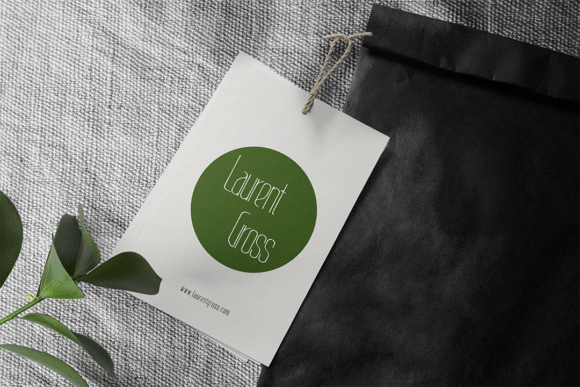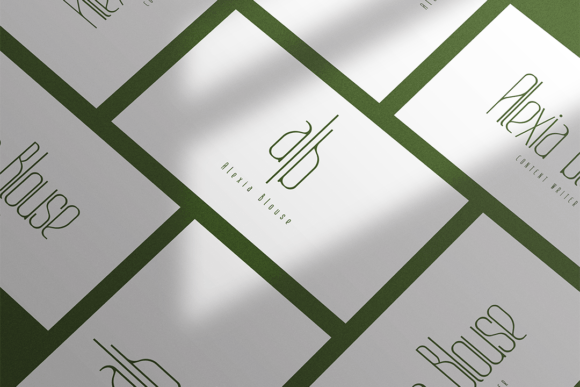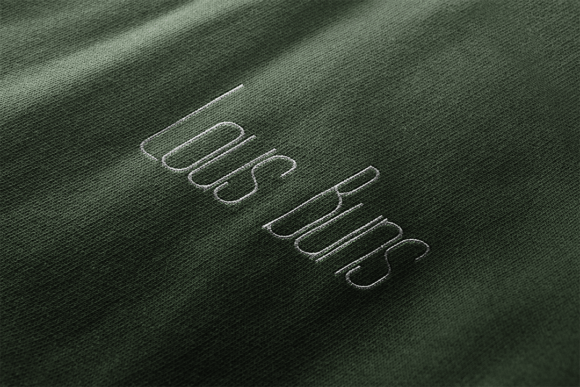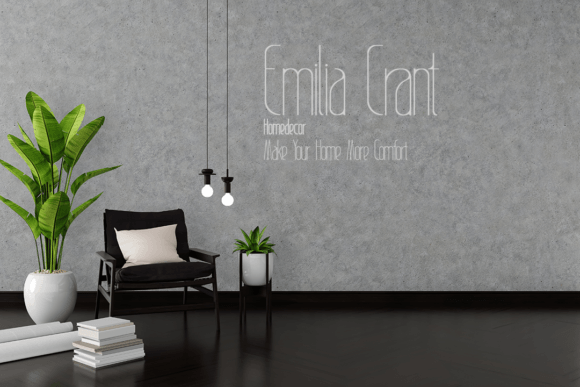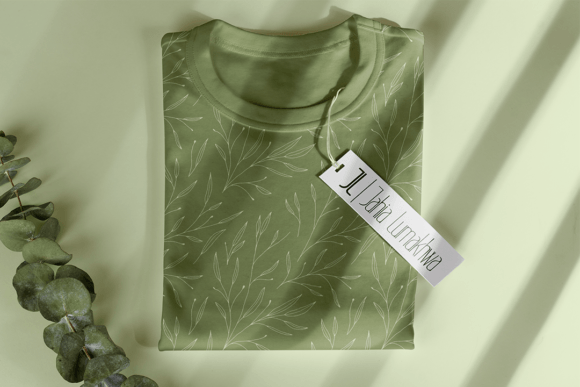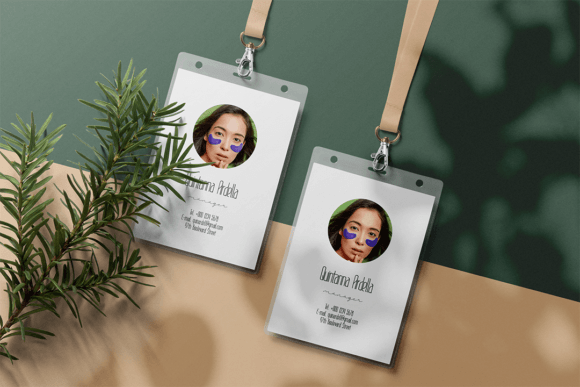
Introducing Gradient Font: Elevate Your Designs with Elegance
Are you tired of using the same old fonts in your designs? Look no further! Gradient Font is here to revolutionize the way you approach typography. This stunning sans-serif font boasts four different thickness levels, allowing you to add a touch of sophistication to any project. From business cards to branding, articles, and more, Gradient Font is the perfect choice for designers and crafters looking to make a statement.
What is Gradient Font?
Gradient Font is a beautifully crafted sans-serif font designed to bring a level of elegance to your designs. With its four different thickness levels, you can use it to create visual interest and hierarchy in your typography. Whether you’re working on a business card, brochure, or website, Gradient Font is the perfect choice for adding a touch of sophistication.
Key Features of Gradient Font
- Four different thickness levels: Use Gradient Font to create visual interest and hierarchy in your typography.
- Elegant sans-serif design: Perfect for designs that require a touch of sophistication.
- Highly versatile: Use Gradient Font in a variety of projects, from business cards to branding, articles, and more.
- Easy to read: Gradient Font is designed to be highly legible, making it perfect for body text and headings.
Why Use Gradient Font?
There are many reasons why Gradient Font stands out from the crowd. Here are just a few:
- Add a touch of elegance: Gradient Font is the perfect choice for designers and crafters looking to add a level of sophistication to their designs.
- Stand out from the crowd: With its unique design and four different thickness levels, Gradient Font is sure to make your designs stand out.
- Perfect for branding: Use Gradient Font to create a consistent brand identity that exudes elegance and sophistication.
How to Use Gradient Font
Using Gradient Font is easy! Here are a few tips to get you started:
- Pair it with other fonts: Gradient Font works beautifully with other sans-serif fonts. Try pairing it with a bold font for added contrast.
- Experiment with color: Gradient Font looks stunning in a variety of colors. Try using it in a gradient or with a bold background.
- Use it consistently: Use Gradient Font consistently throughout your design to create a cohesive look.
Design Ideas with Gradient Font
Here are a few design ideas to get you started with Gradient Font:
- Business cards: Use Gradient Font to create a sophisticated and elegant business card design.
- Branding: Use Gradient Font to create a consistent brand identity that exudes elegance and sophistication.
- Articles and blogs: Use Gradient Font to add a touch of elegance to your articles and blog posts.
- Brochures and flyers: Use Gradient Font to create a visually appealing brochure or flyer design.
Gradient Font is a stunning sans-serif font that is sure to elevate your designs. With its four different thickness levels and elegant design, it’s the perfect choice for designers and crafters looking to add a touch of sophistication to their work. Whether you’re working on a business card, branding, article, or more, Gradient Font is the perfect choice. So why wait? Download Gradient Font today and start creating something beautiful!